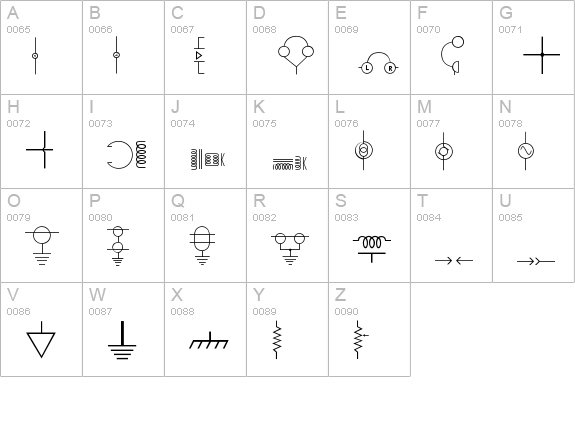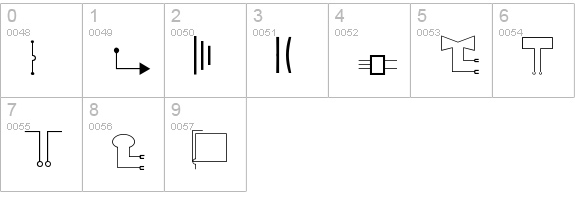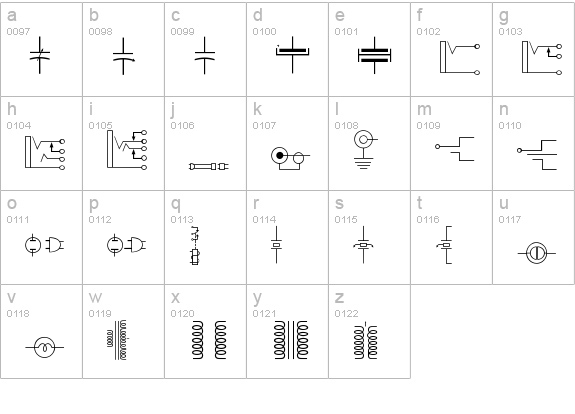
Carr Electronic Dingbats Font Details
Carr Electronic Dingbats font is a unique and eye-catching typeface that is perfect for adding a touch of whimsy to your designs. This playful font features a variety of electronic-themed dingbats, including circuit boards, computer icons, and futuristic symbols. Whether you're creating a tech-themed poster, a digital brochure, or a website for a cutting-edge company, Carr Electronic Dingbats font is sure to make your design stand out. Best of all, Carr Electronic Dingbats font is available for free download at FontsMarket.com. This means you can easily add this fun and versatile font to your collection without breaking the bank. Don't miss out on the opportunity to enhance your projects with the playful charm of Carr Electronic Dingbats font – download it for free today!